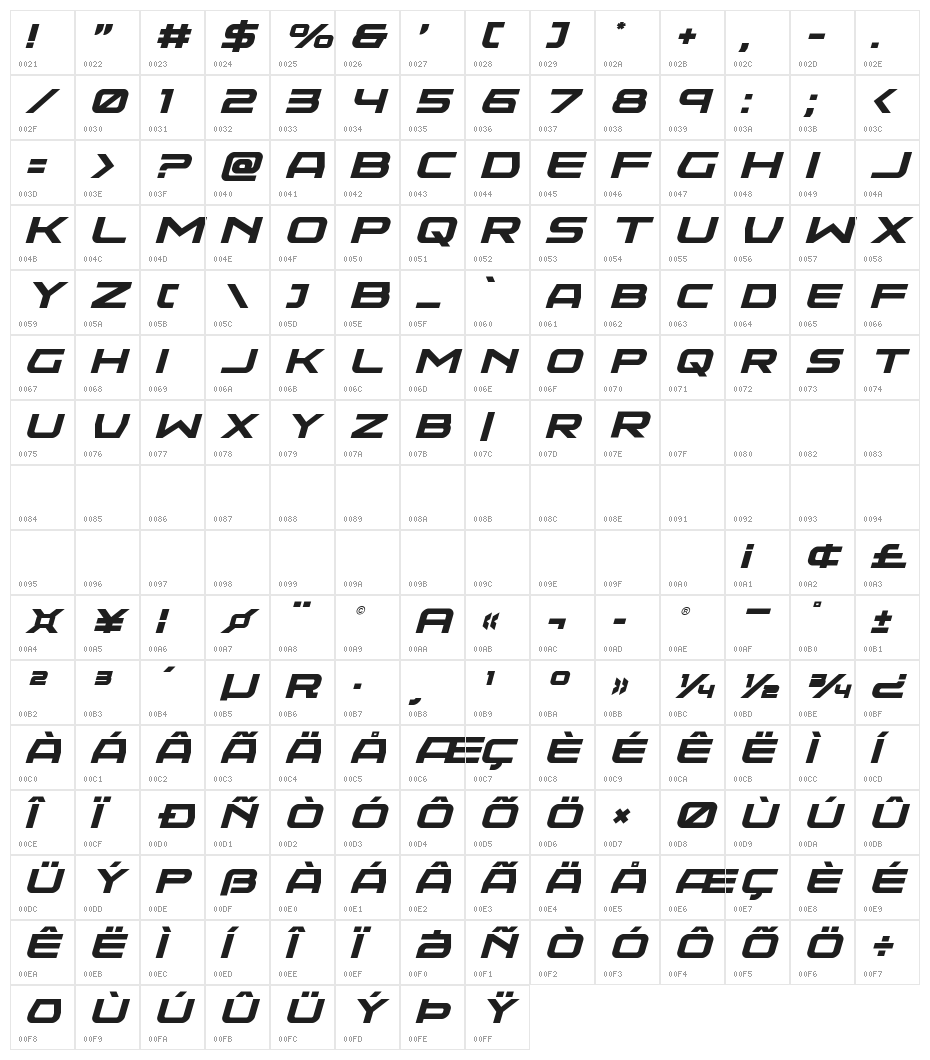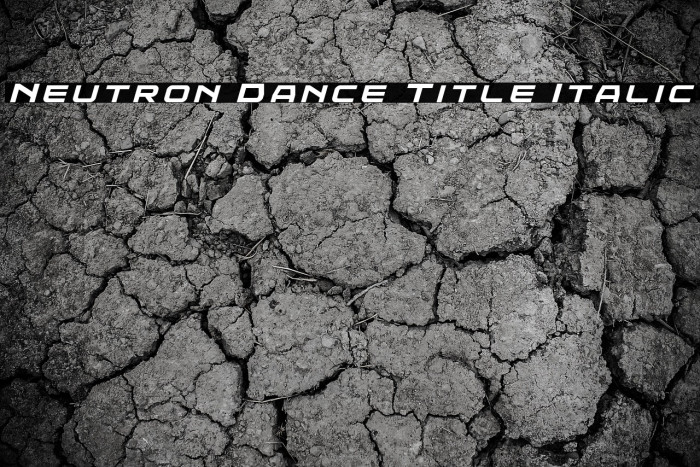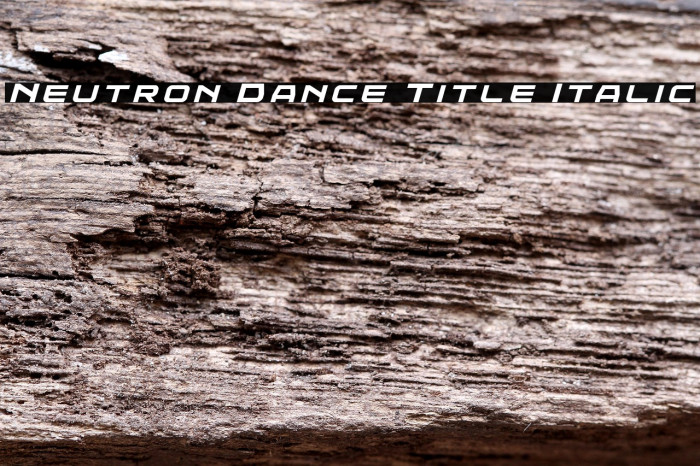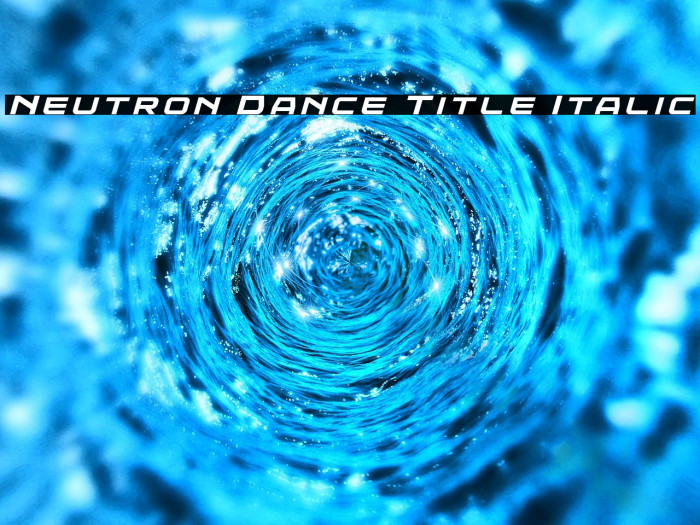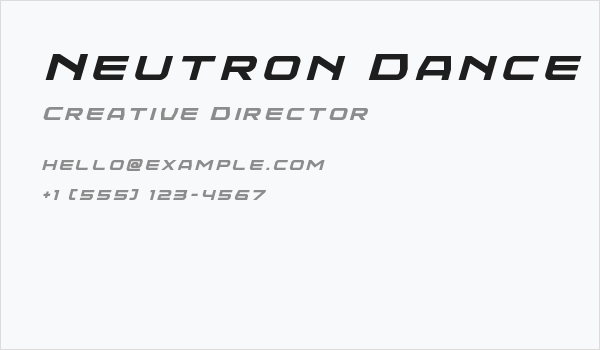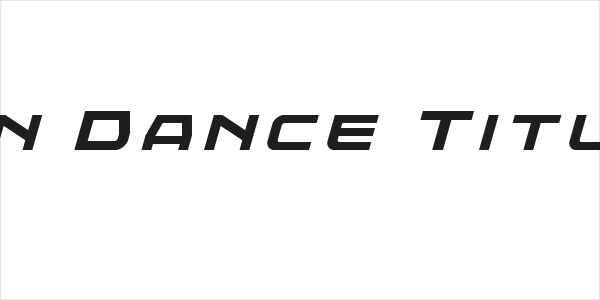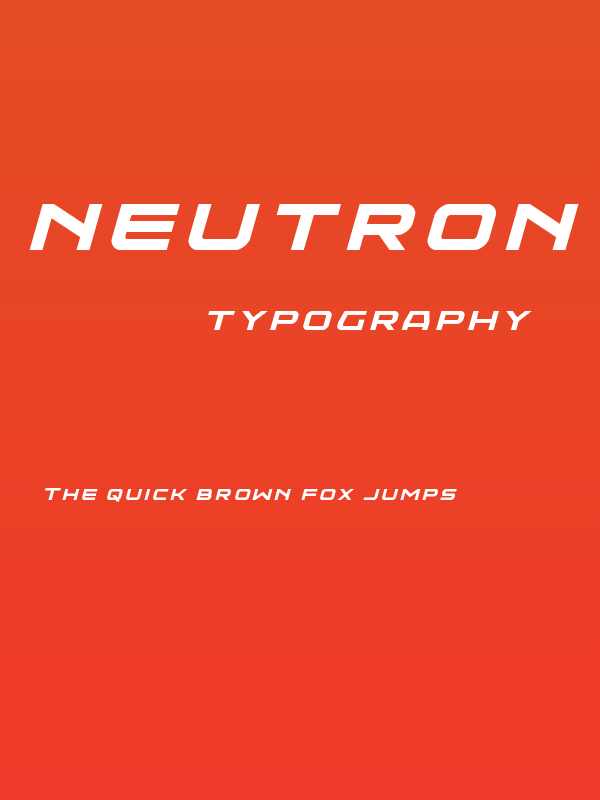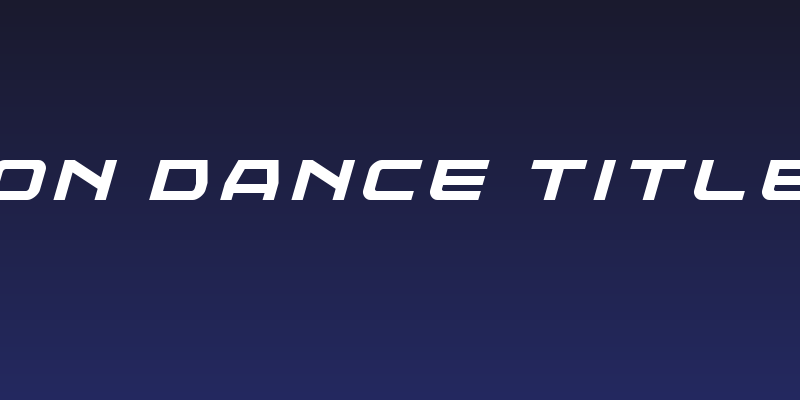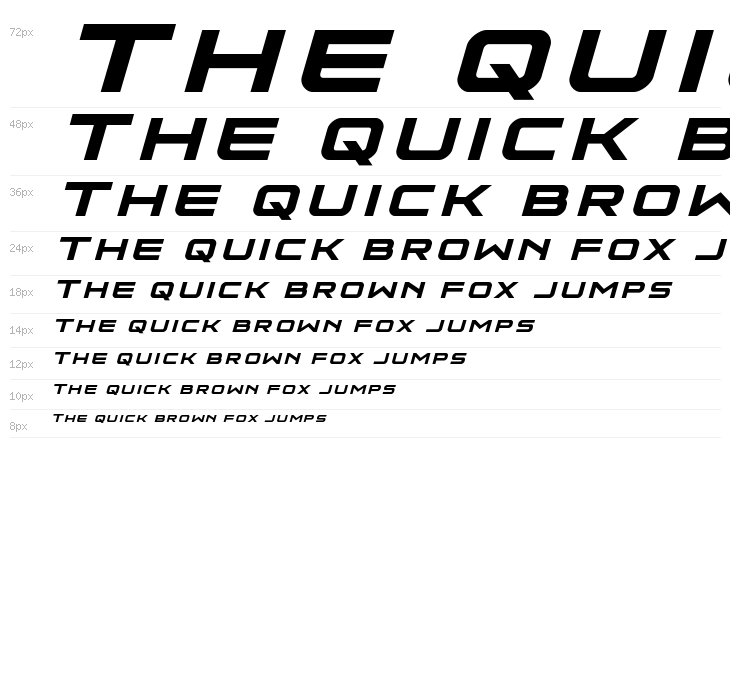
Neutron Dance Title Italic Font
Neutron Dance Title Italic Description
This font features a dynamic and modern italic style with a futuristic flair. The characters are slightly slanted, giving a sense of motion and speed. Each letter is crafted with precision, showcasing sharp angles and clean lines. The uppercase and lowercase letters maintain a consistent style, while the numerals and special characters complement the overall design. The font's geometric structure is balanced with a touch of elegance, making it suitable for contemporary projects.
| Use Case | Headlines, Logos, Titles |
| Proposed Projects | Ideal for technology branding, sports team logos, sci-fi movie titles, and modern advertising campaigns. |